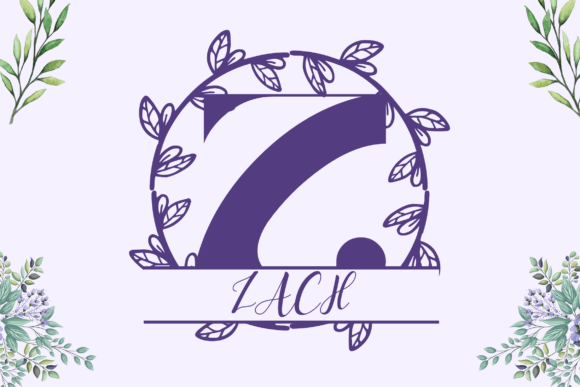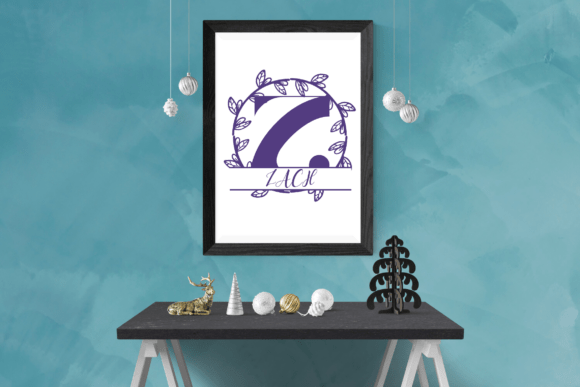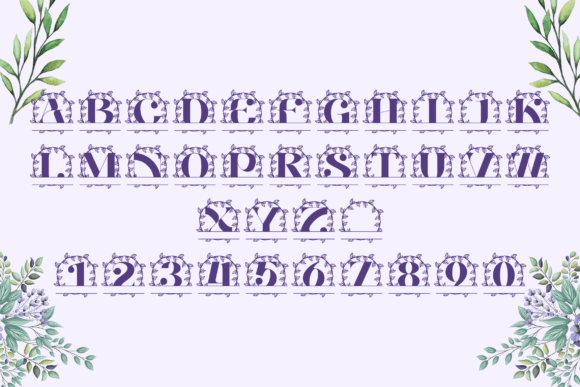
Introducing Everlaurel Split Monogram Font: Elevate Your Designs with Timeless Laurel-Inspired Emblems
Are you a designer or crafter looking for a unique and elegant font to add a touch of sophistication to your designs? Look no further than Everlaurel Split Monogram Font. This versatile font is designed to turn simple initials into stunning laurel-inspired emblems, perfect for a wide range of applications, from wedding suites to luxury packaging.
What is Everlaurel Split Monogram Font?
Everlaurel Split Monogram Font is a carefully crafted font that features a clean center split, making it ideal for creating monograms, initials, and short words. The strokes are smooth and balanced, ensuring that letters remain clear and legible at any size. The open counters and clean curves of the font also make it perfect for use in small tags and large signage, where clarity and readability are essential.
Key Features of Everlaurel Split Monogram Font
- Versatile: The font is suitable for a wide range of applications, including wedding suites, boutique logos, keepsake gifts, wax seals, stationery, and luxury packaging.
- Clean and Elegant: The font features clean outlines that cut and print beautifully, making it perfect for use with various techniques, such as foil, emboss, deboss, engraving, laser, vinyl, DTF, and sublimation.
- Instant Personalization: The split bar design allows for instant personalization, making it easy to create custom listings that look high-end without requiring extra design time.
- Consistent Spacing and Proportions: The font’s steady spacing and proportions make it easy to build layouts quickly and efficiently.
Why Choose Everlaurel Split Monogram Font?
Everlaurel Split Monogram Font is an excellent choice for designers and crafters who want to elevate their designs with a touch of elegance and sophistication. Here are just a few reasons why:
- Save Time: With Everlaurel Split Monogram Font, you can create stunning monograms and emblems in minutes, without requiring extensive design experience.
- Increase Perceived Value: The font’s elegant design and instant personalization features make it easy to create custom listings that look high-end, increasing the perceived value of your products.
- Versatility: The font’s versatility makes it suitable for a wide range of applications, allowing you to use it across multiple projects and designs.
- Experiment with Different Sizes: Everlaurel Split Monogram Font is designed to be clear and legible at any size, so don’t be afraid to experiment with different sizes and applications.
- Combine with Other Fonts: The font pairs well with other fonts, making it easy to create unique and interesting combinations.
- Take Advantage of Instant Personalization: Use the split bar design to create custom listings that look high-end and personalized.
Everlaurel Split Monogram Font is a versatile and elegant font that is perfect for designers and crafters looking to elevate their designs with timeless laurel-inspired emblems. With its clean center split, smooth strokes, and open counters, this font is suitable for a wide range of applications, from wedding suites to luxury packaging. Whether you’re looking to save time, increase perceived value, or simply add a touch of sophistication to your designs, Everlaurel Split Monogram Font is an excellent choice.